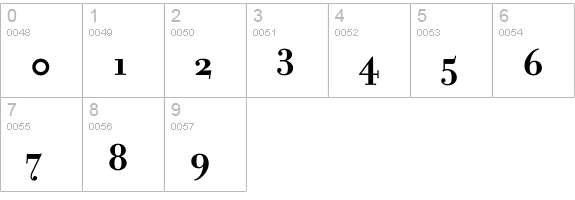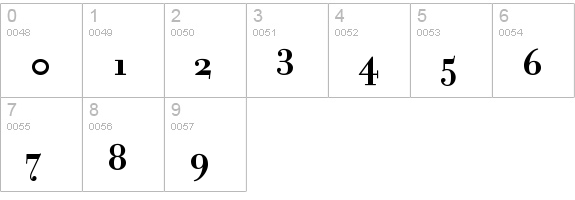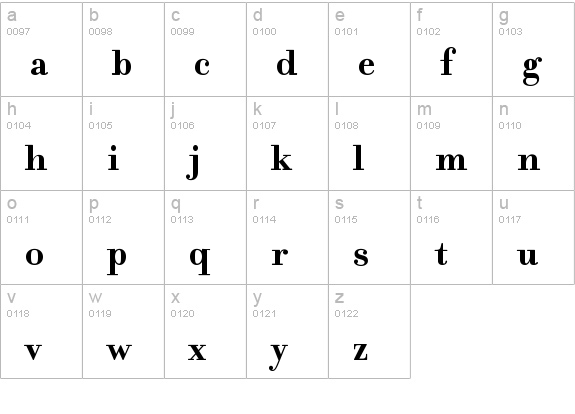
FilosofiaBold Font Details
FilosofiaBold font is a stunning and elegant typeface that exudes sophistication and charm. Its bold and striking letterforms make it perfect for headlines, titles, and other eye-catching design projects. With its timeless appeal and modern twist, FilosofiaBold is sure to make a statement in any design. What sets FilosofiaBold apart is its versatility and adaptability to various design styles and purposes. Whether you're working on a branding project, editorial design, or any other creative endeavor, this font will elevate your work to new heights. And the best part? FilosofiaBold is freely available to download at FontsMarket.com. So you can enhance your design projects with this exquisite font without any cost. Don't miss out on the opportunity to add FilosofiaBold to your font collection today and take your designs to the next level!